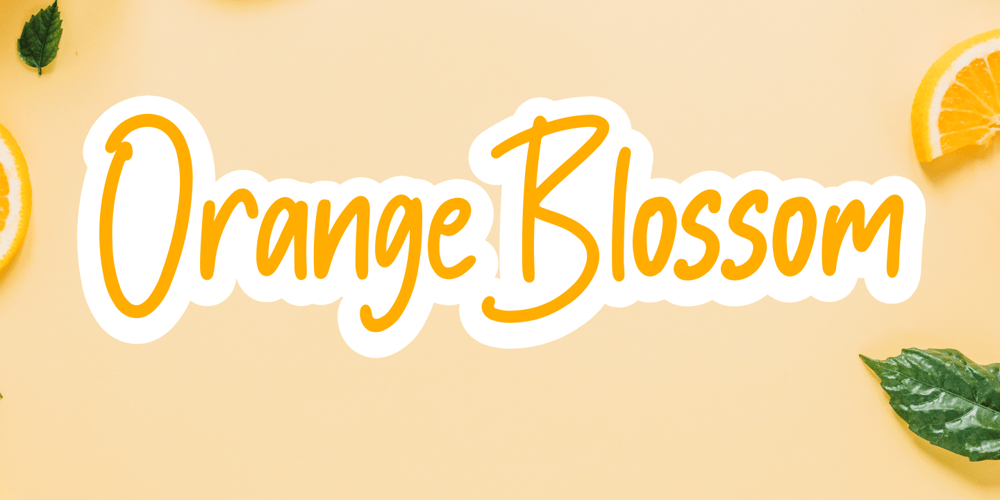
Orange Blossom Font Family was designed by Muhammad Fikry and published by Fikryal. Orange Blossom contains 1 styles and family package options. Orange Blossom is a beautiful display font perfect for crafting, branding, invitation, stationery, wedding designs, social media posts, advertisements, product packaging, product designs, label, photography, watermark, special events or anything.Orange Blossom comes with full set of uppercase and lowercase letters, ligatures,multilingual symbols, numerals and punctuation.